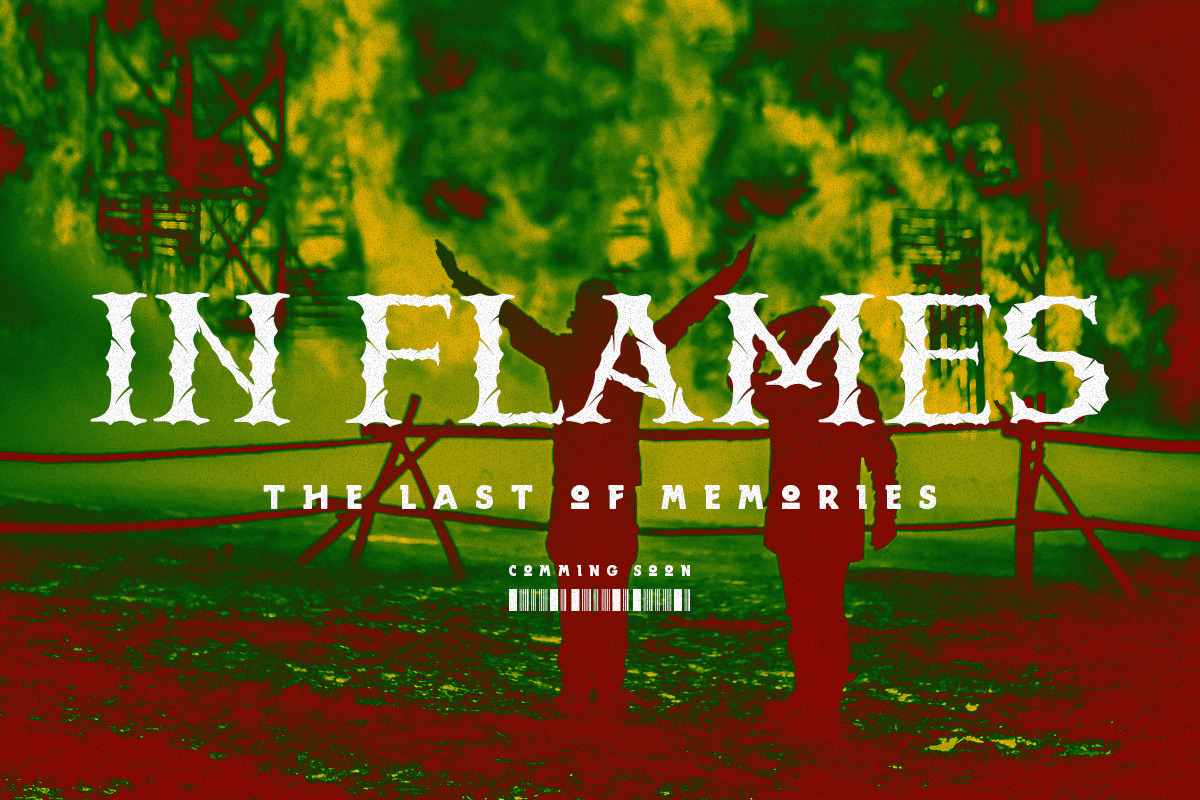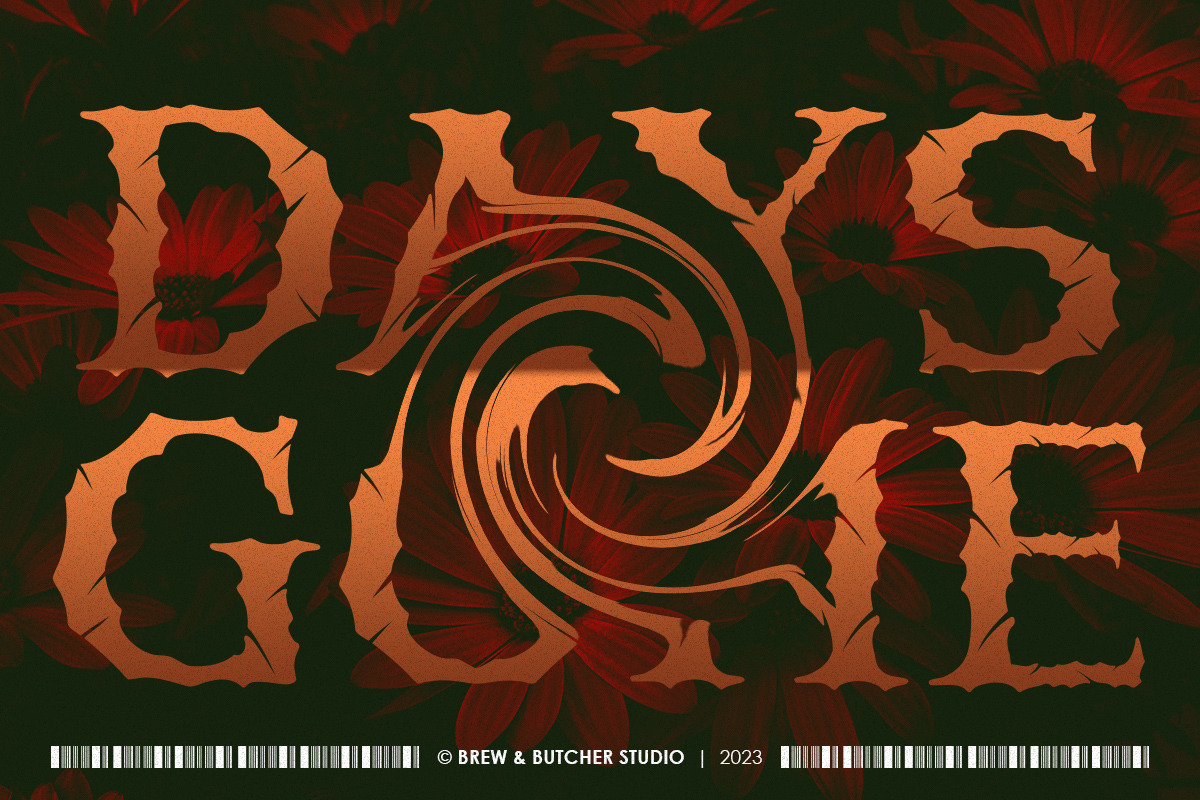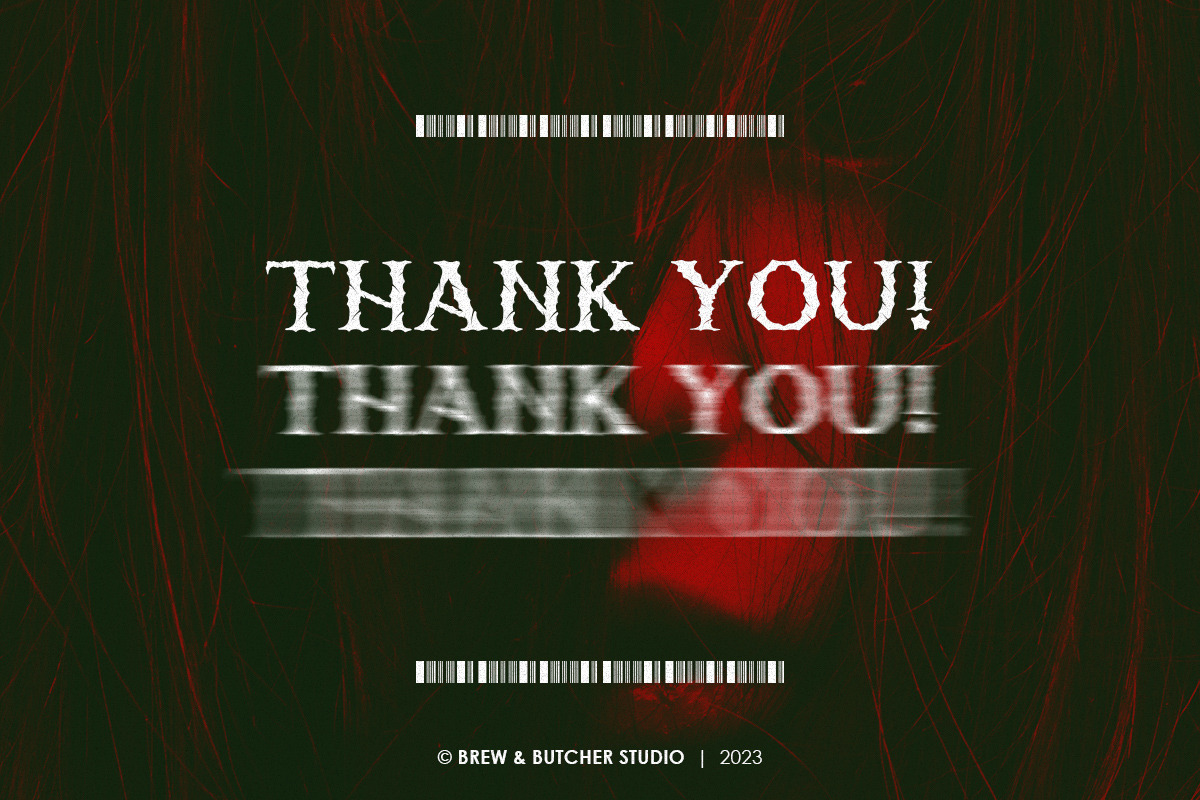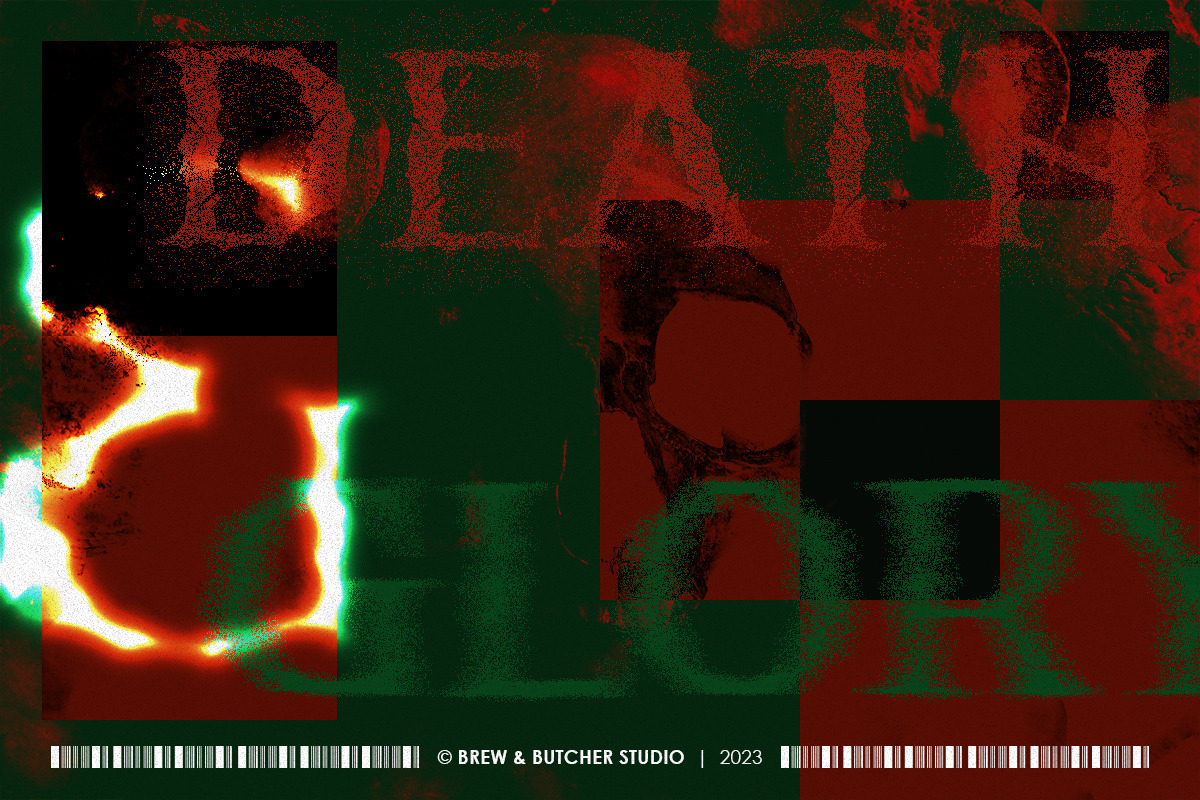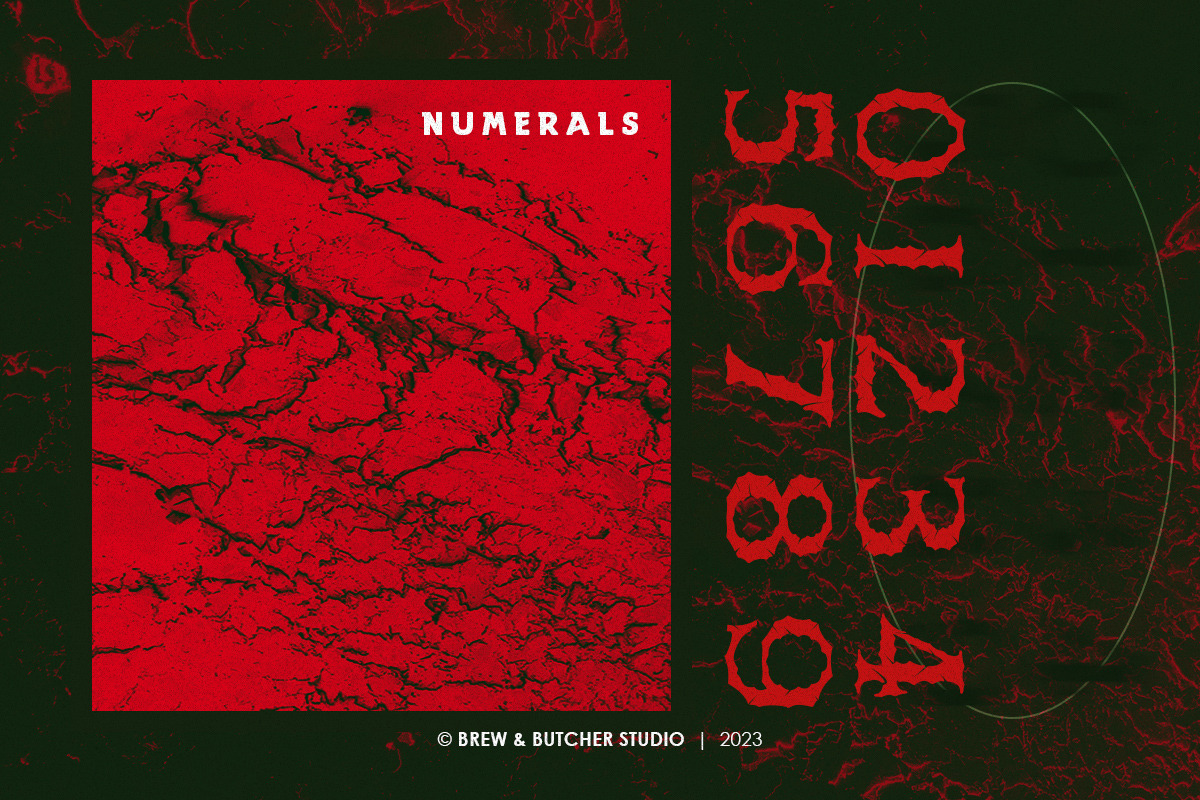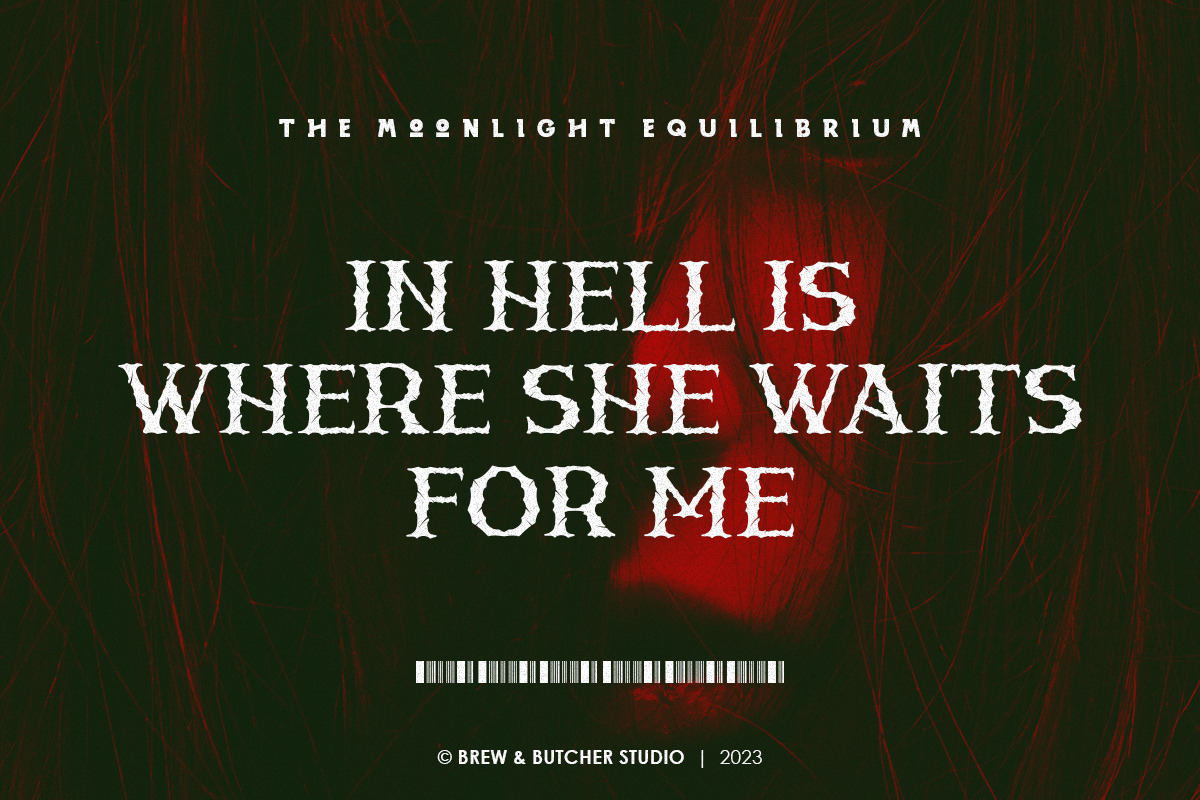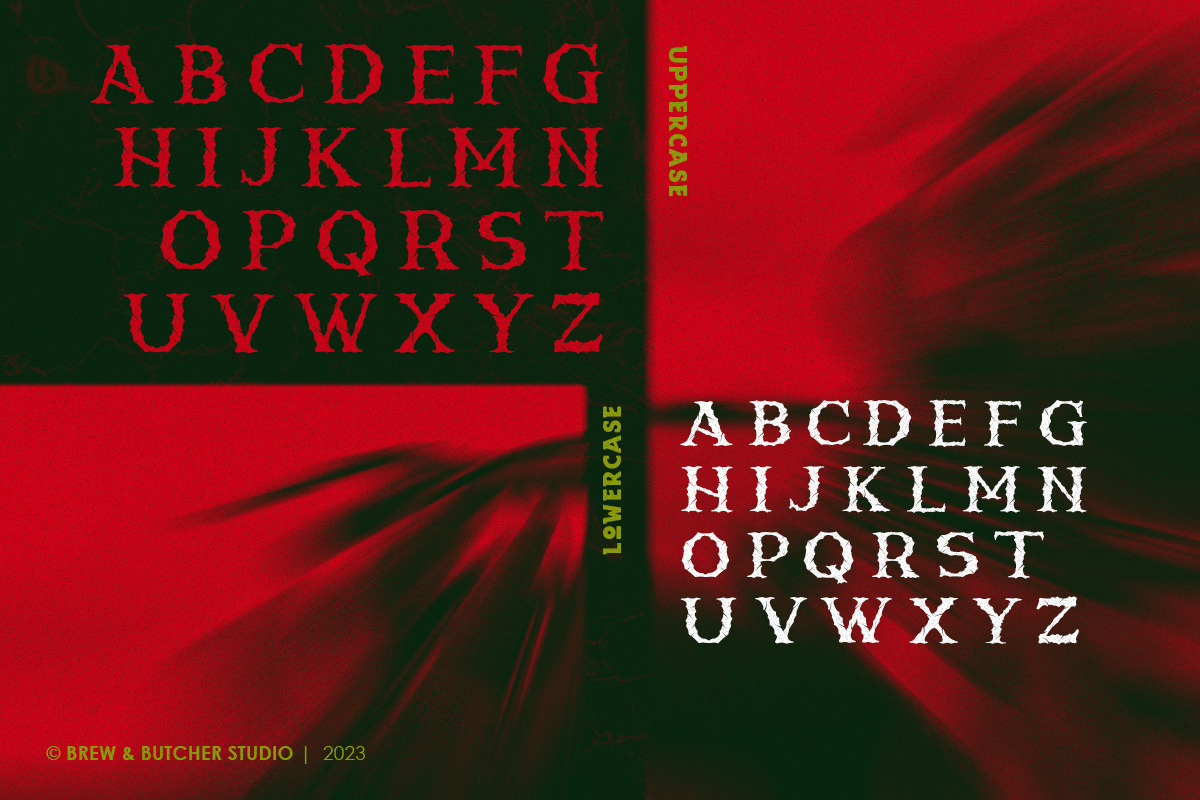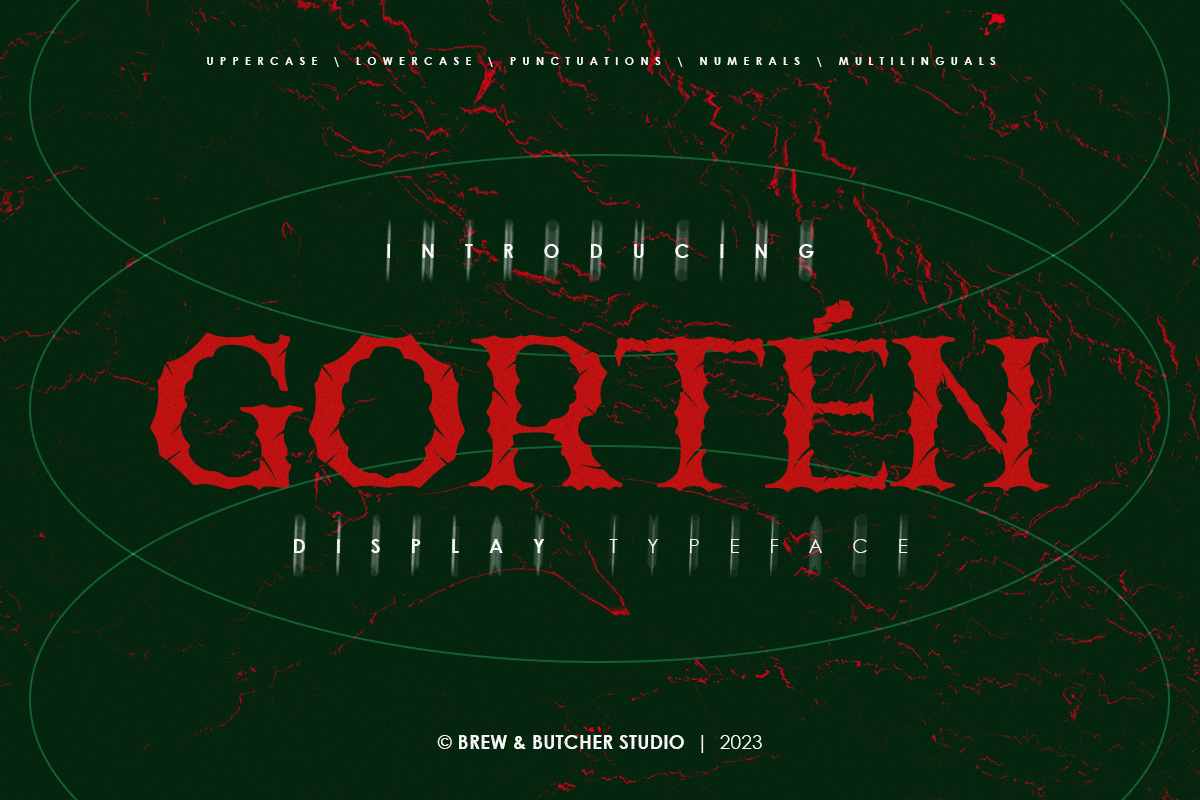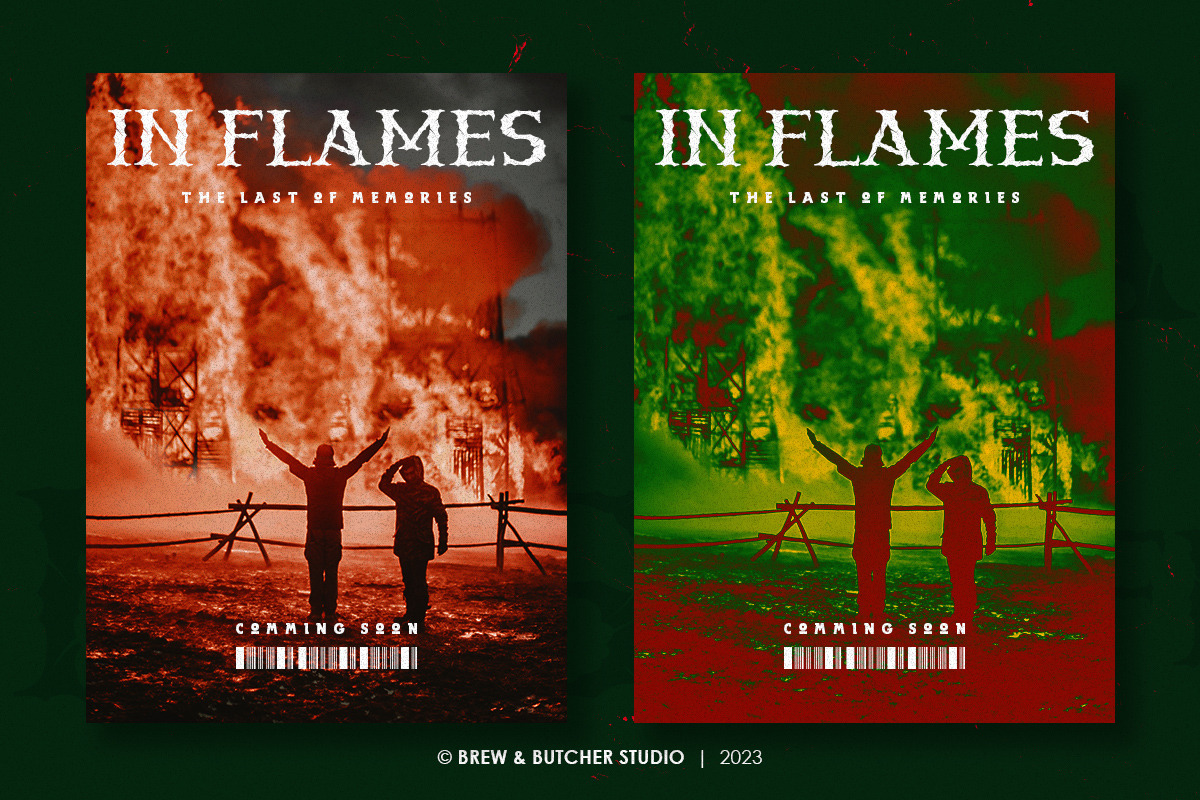
Gorten | Display Typeface
Gorten is a font that has a scary and dark impression. Inspired by a dark world with a basic serif font, combined with angles and scratches that accompany the rhythm of this font. This font is best to use for header or headline, poster, flyer, banner, landingpage, portfolio, name write, album covers, and etc.